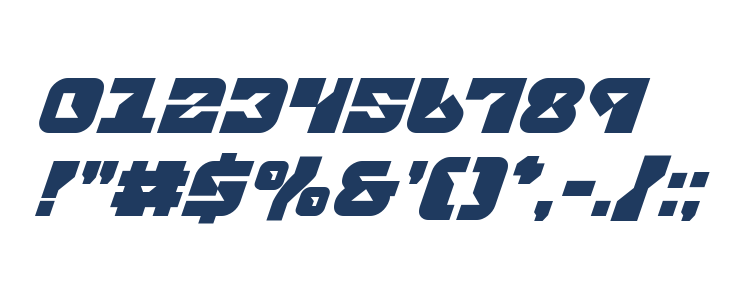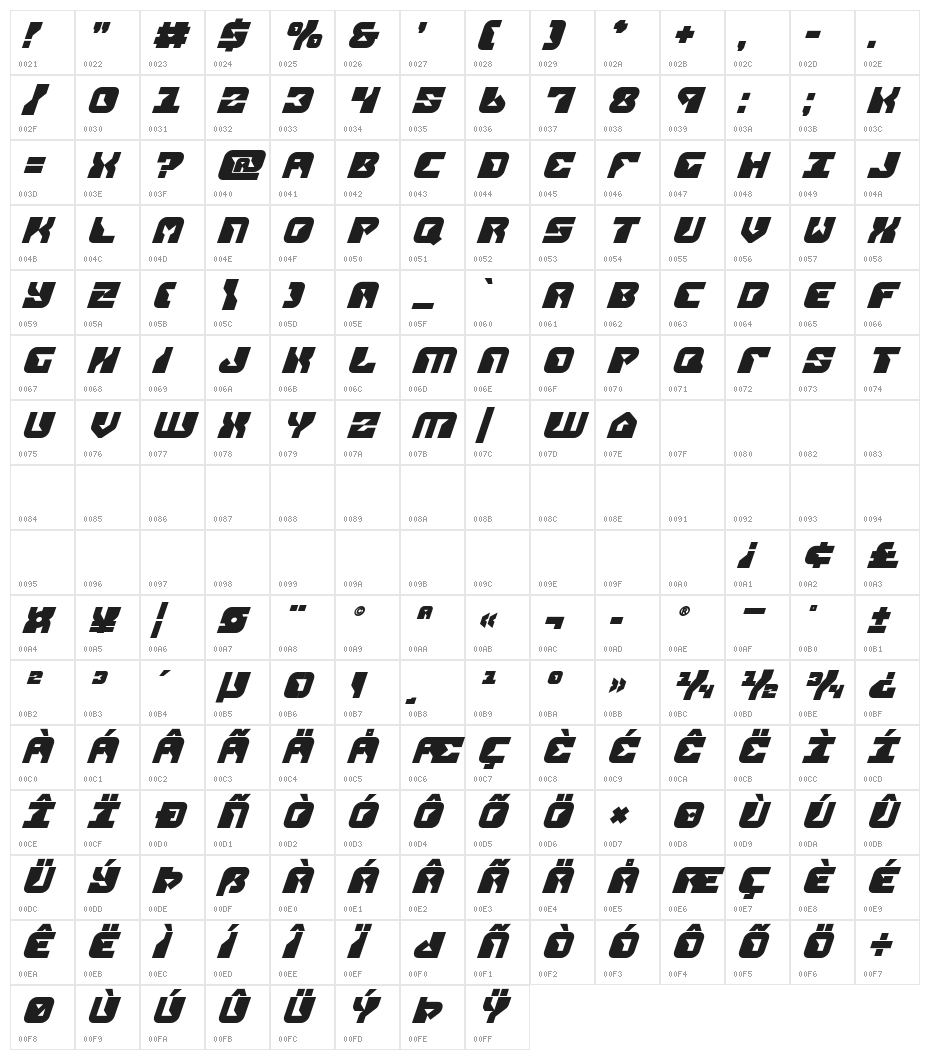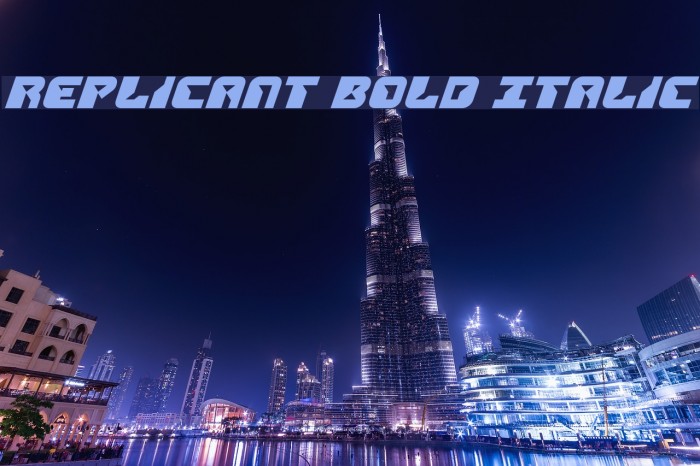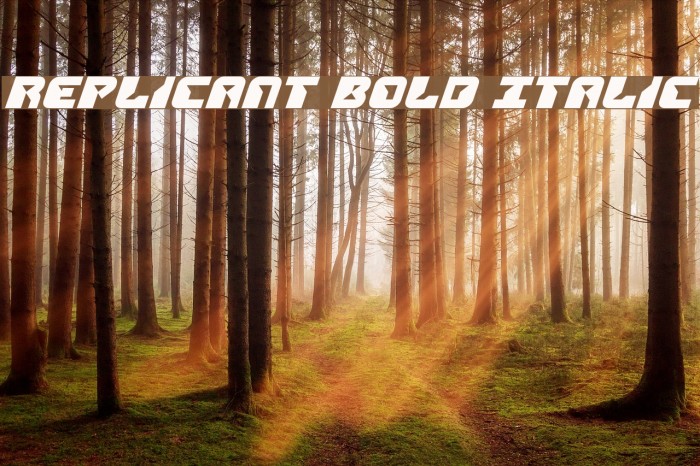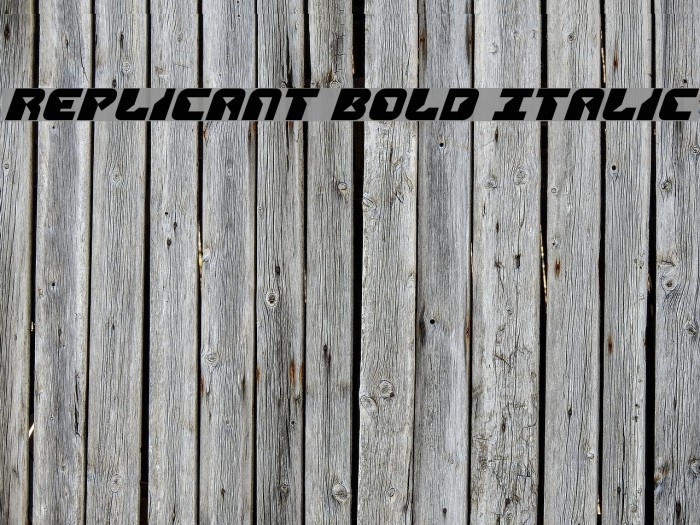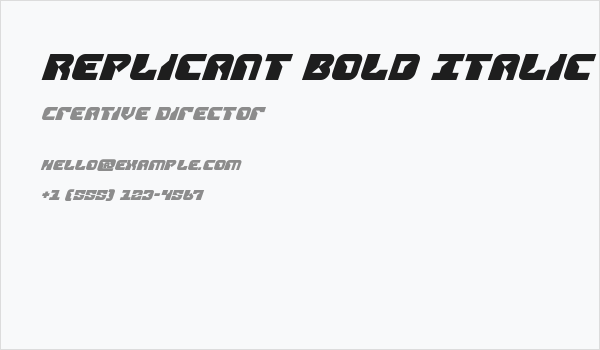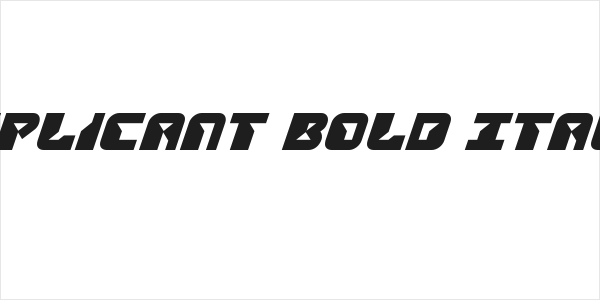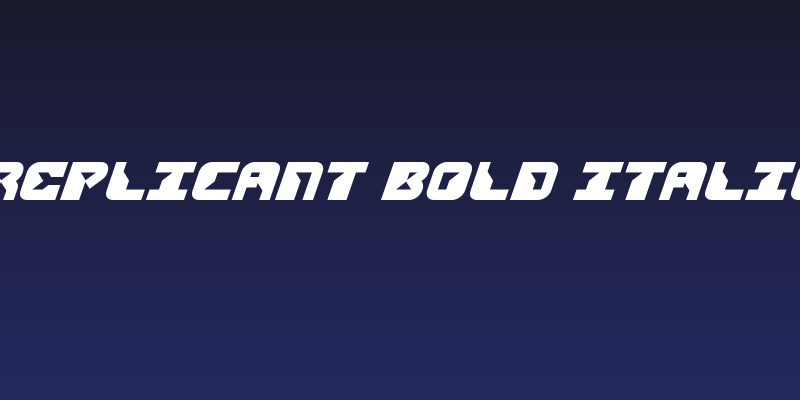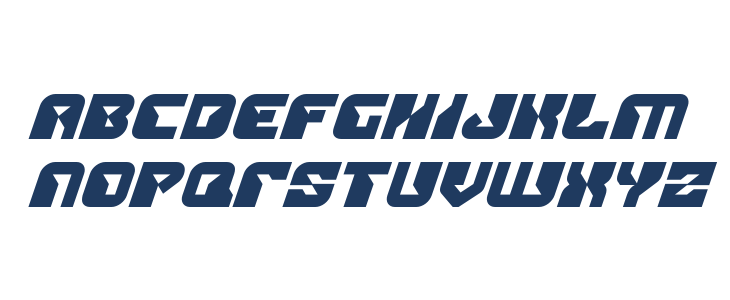
Replicant Bold Italic Font
Replicant Bold Italic Description
This font features a bold and italicized style with a futuristic and angular design. The characters are sharply cut with a distinct slant, giving them a dynamic and forward-moving appearance. The uppercase and lowercase letters maintain a consistent style, with the uppercase being more pronounced. Numbers and special characters follow the same angular and bold aesthetic, ensuring uniformity across all glyphs. The font's unique style makes it stand out, suitable for projects that require a modern and edgy look.
Proposed ProjectsIdeal for sci-fi themed designs, video game titles, tech branding, and futuristic posters.